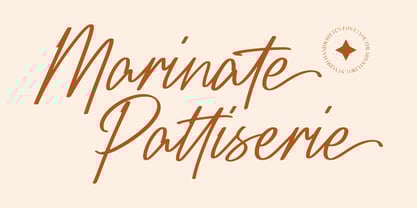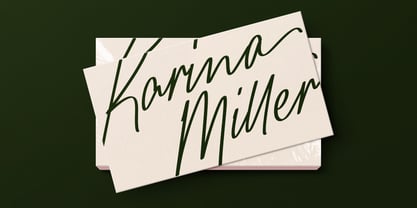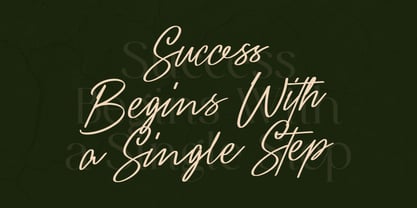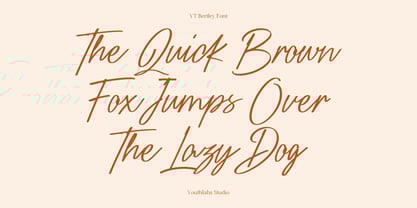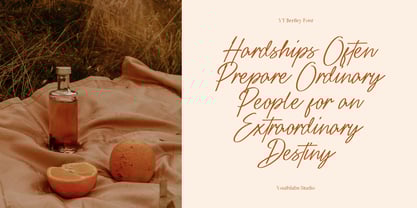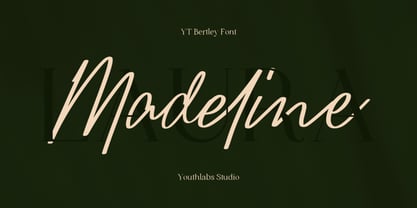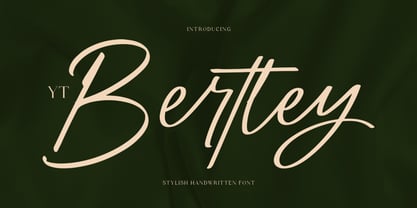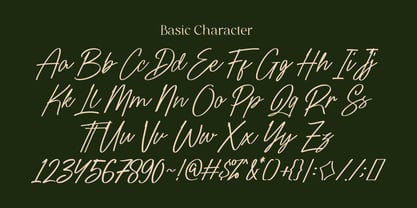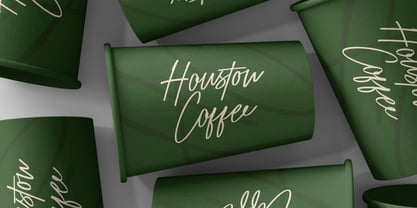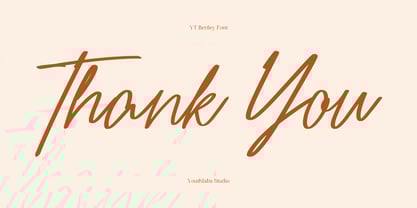
YT Bertley
La famille de polices YT Bertley a été conçue par Fathi Al Ghazi et publiée par Youthlabs. YT Bertley contient 1 styles.
Introducing YT Bertley, a Handwritten Script Font. YT Bertley is not just a font; it’s the essence of personal touch crafted into every letter. Designed to mimic the natural flow of handwriting, this script font brings warmth, authenticity, and a touch of elegance to your projects. Whether you’re creating heartfelt invitations, stylish branding, or social media posts that stand out, YT Bertley adds a beautifully crafted, handwritten charm that feels both personal and professional. Let your words flow effortlessly with YT Bertley – where every letter tells your story, beautifully.
Youthllabs Studio is a digital type foundry that focused on making fonts, handlettering, and many project that related with letter. Founded in Lampung, Indonesia in 2018. Youthlabs Studio is inspired by sophisticated writing, luxury brands, vintage, professional logos and brand identity. Youthlabs Studio offers quality typography suitable for your various projects. Youthlabs Studio crafted fonts that give you access to a unique font collection.Thanks for Supporting us.